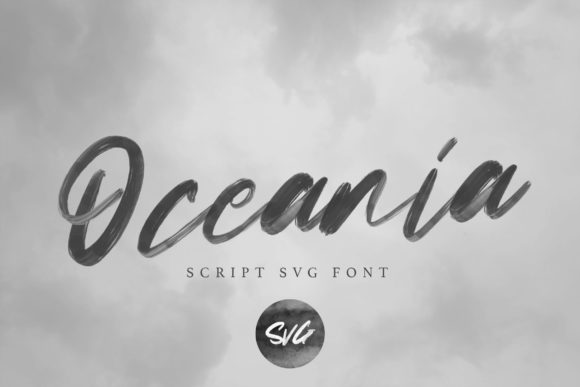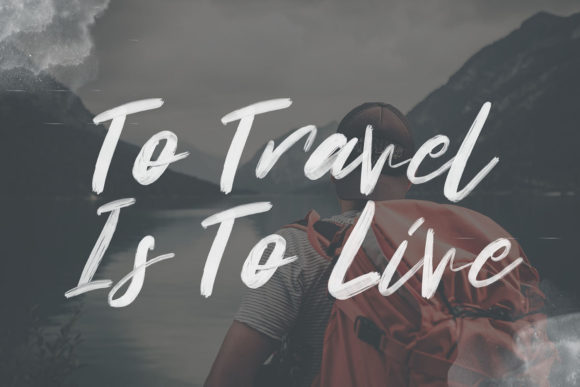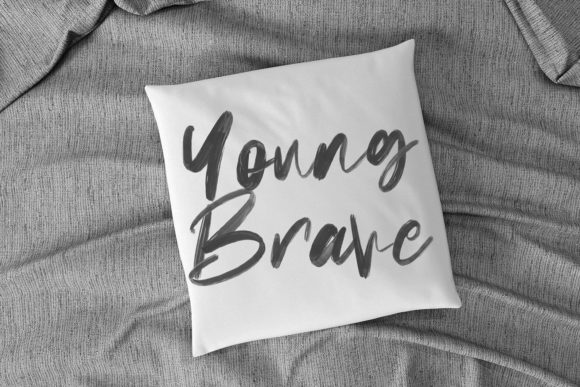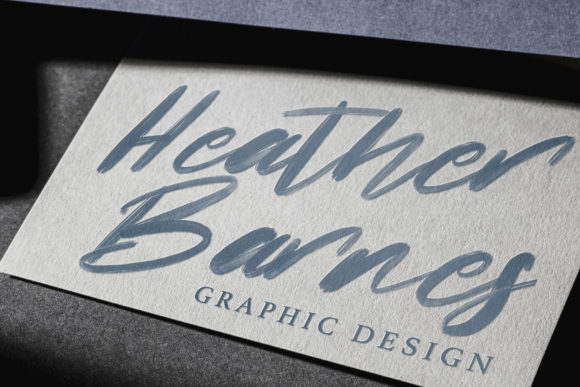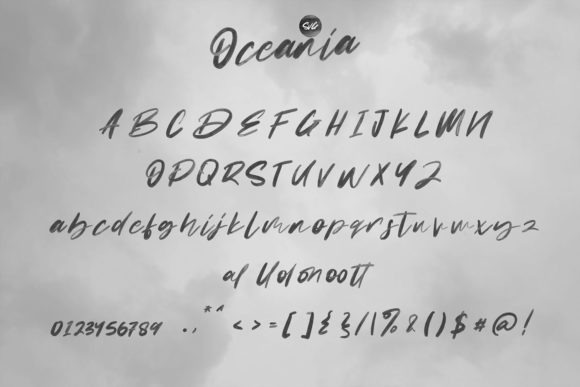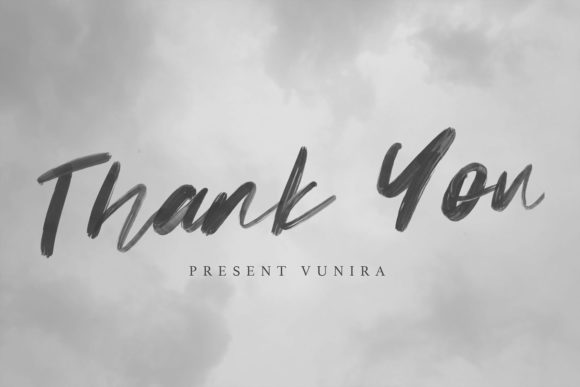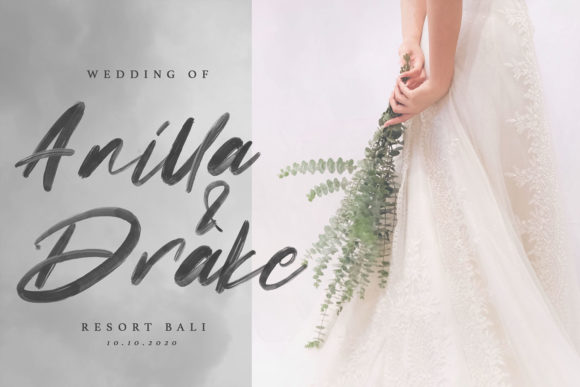
Oceania Font
About Oceania Font
Oceania is a beautiful, brushed and unique handwritten font. No matter the topic, this font will be an incredibly asset to your fonts’ library, as it has the potential to elevate any creation.